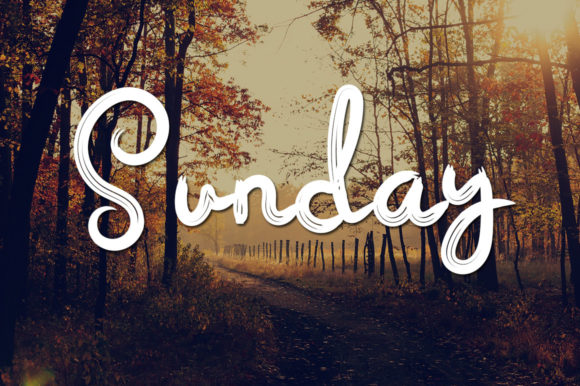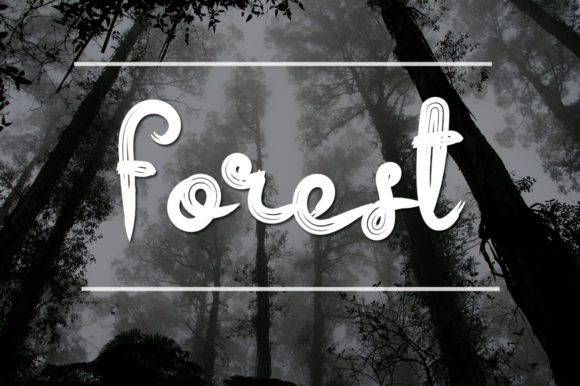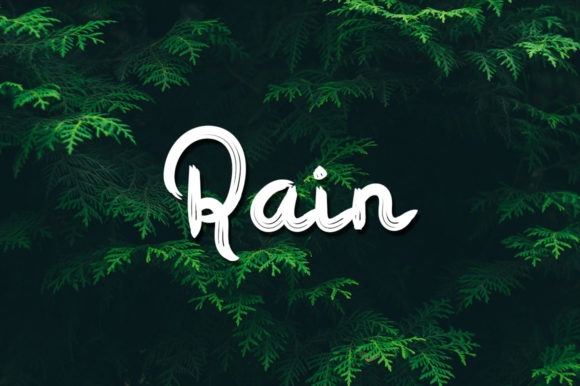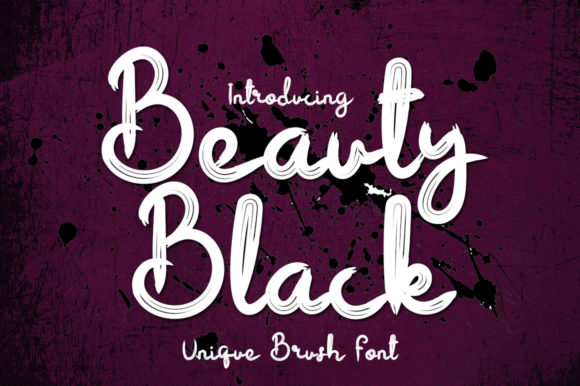
Introducing Beauty Black Font: The Epitome of Elegance and Sophistication
Are you on the hunt for a font that exudes luxury, refinement, and style? Look no further than Beauty Black, a chic, brushed script font that is sure to elevate your design projects to new heights. With its sophisticated alternates and ligatures, Beauty Black is the perfect match for designers and crafters seeking to add a touch of elegance to their work.
The Beauty of Brushed Script Fonts
Brushed script fonts have long been a favorite among designers and crafters, and for good reason. They offer a unique blend of elegance and whimsy, making them perfect for a wide range of projects, from wedding invitations and branding materials to packaging and advertising. Beauty Black is no exception, boasting a beautiful, hand-brushed aesthetic that is sure to capture the attention of your audience.
What Sets Beauty Black Apart
So, what makes Beauty Black stand out from the crowd? For starters, its stylish alternates and ligatures offer a level of sophistication and refinement that is hard to find in other fonts. These special characters allow you to add a touch of personality to your text, making it truly one-of-a-kind. Additionally, Beauty Black’s clean lines and flowing curves make it incredibly versatile, suitable for use in a wide range of design applications.
Beauty Black is a font that is sure to delight designers and crafters alike. Whether you’re working on a commercial project or a personal craft, this font is sure to bring a level of elegance and sophistication to your work. Here are just a few ways you can use Beauty Black to take your designs to the next level:
• Wedding Invitations: Beauty Black is the perfect font for wedding invitations, adding a touch of luxury and romance to your designs.
• Branding Materials: Use Beauty Black to create stunning branding materials, such as business cards, letterheads, and brochures.
• Packaging: Add a touch of elegance to your packaging with Beauty Black, perfect for luxury brands and high-end products.
• Advertising: Use Beauty Black to create eye-catching advertisements that are sure to capture the attention of your target audience.
Tips for Using Beauty Black
To get the most out of Beauty Black, here are a few tips to keep in mind:
• Pair with a Simple Font: Beauty Black is a statement font, so it’s best to pair it with a simple font to avoid overwhelming the reader.
• Use it Sparingly: While Beauty Black is a beautiful font, it can be overwhelming if used too much. Use it sparingly to add a touch of elegance to your designs.
• Experiment with Alternates and Ligatures: Don’t be afraid to experiment with Beauty Black’s alternates and ligatures to add a touch of personality to your text.
In conclusion, Beauty Black is a stunning brushed script font that is sure to bring a level of elegance and sophistication to your design projects. With its stylish alternates and ligatures, clean lines, and flowing curves, Beauty Black is the perfect match for designers and crafters seeking to add a touch of luxury to their work. So why wait? Download Beauty Black today and take your designs to the next level!